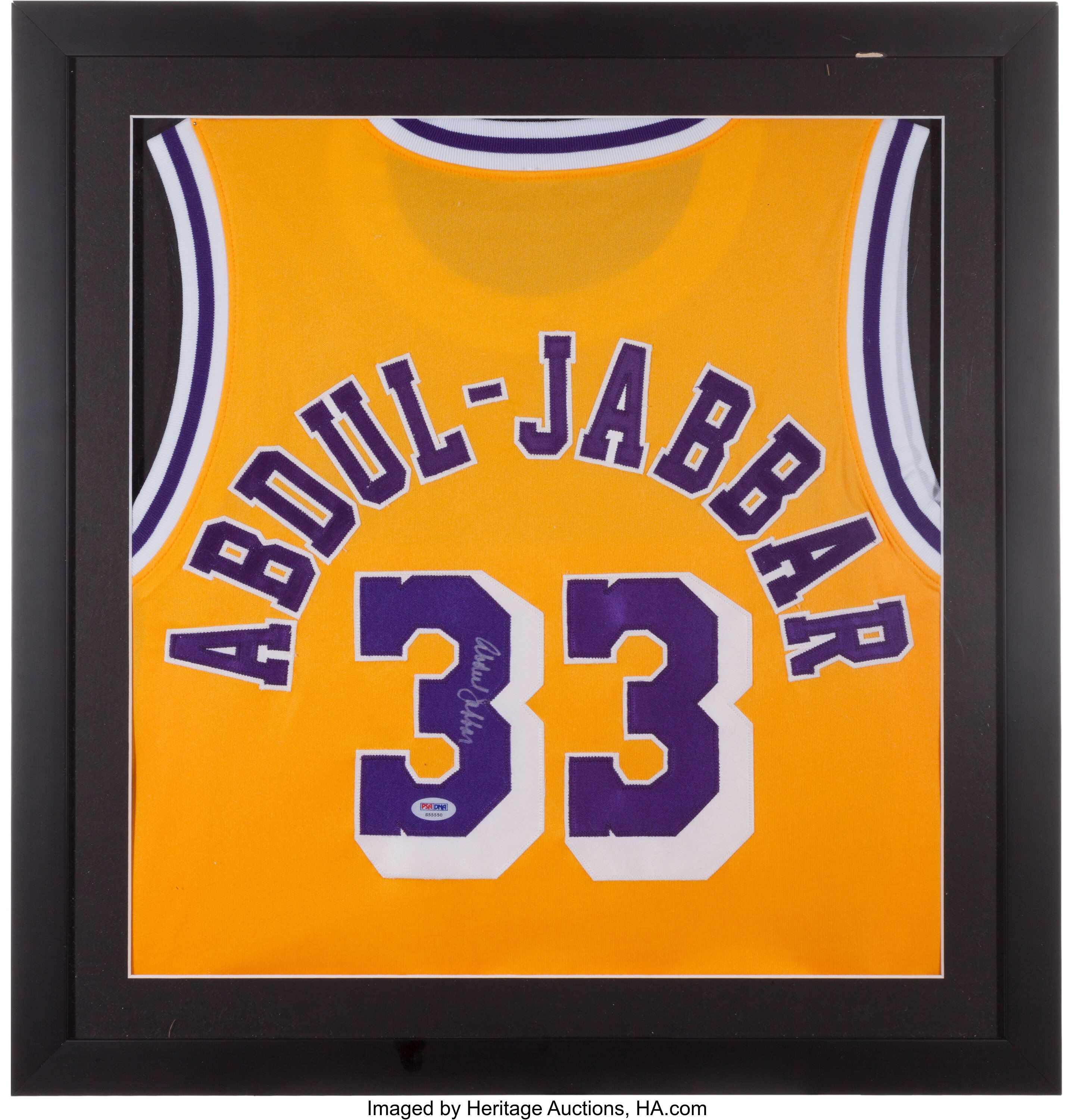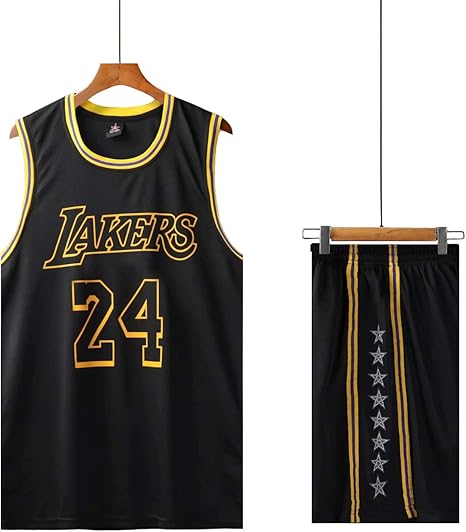
New jersey woman rolls dice 154 times. Some of the strokes have been widened elongated andor skewed. This is not the official font and only resembles the font used for lettering numbers and player names. Nba lakers showtime font.
Nba fonts and other sports fonts are really famous among the graphic designers as well as the fabric designers. The lettering for the lakers logotype resembles a font named bodoni italic created by gerald giampa. To me the lakers text on the current main lakers logo seems too similar to say that its not based in some part on the geometry of bodoni.
Nba jersey is a fancy old school font designed by eriq p. The name of lakers originates from the state of minnesota being the land of 10000 lakes where the team first played. The font is free for both personel and commercial usages.